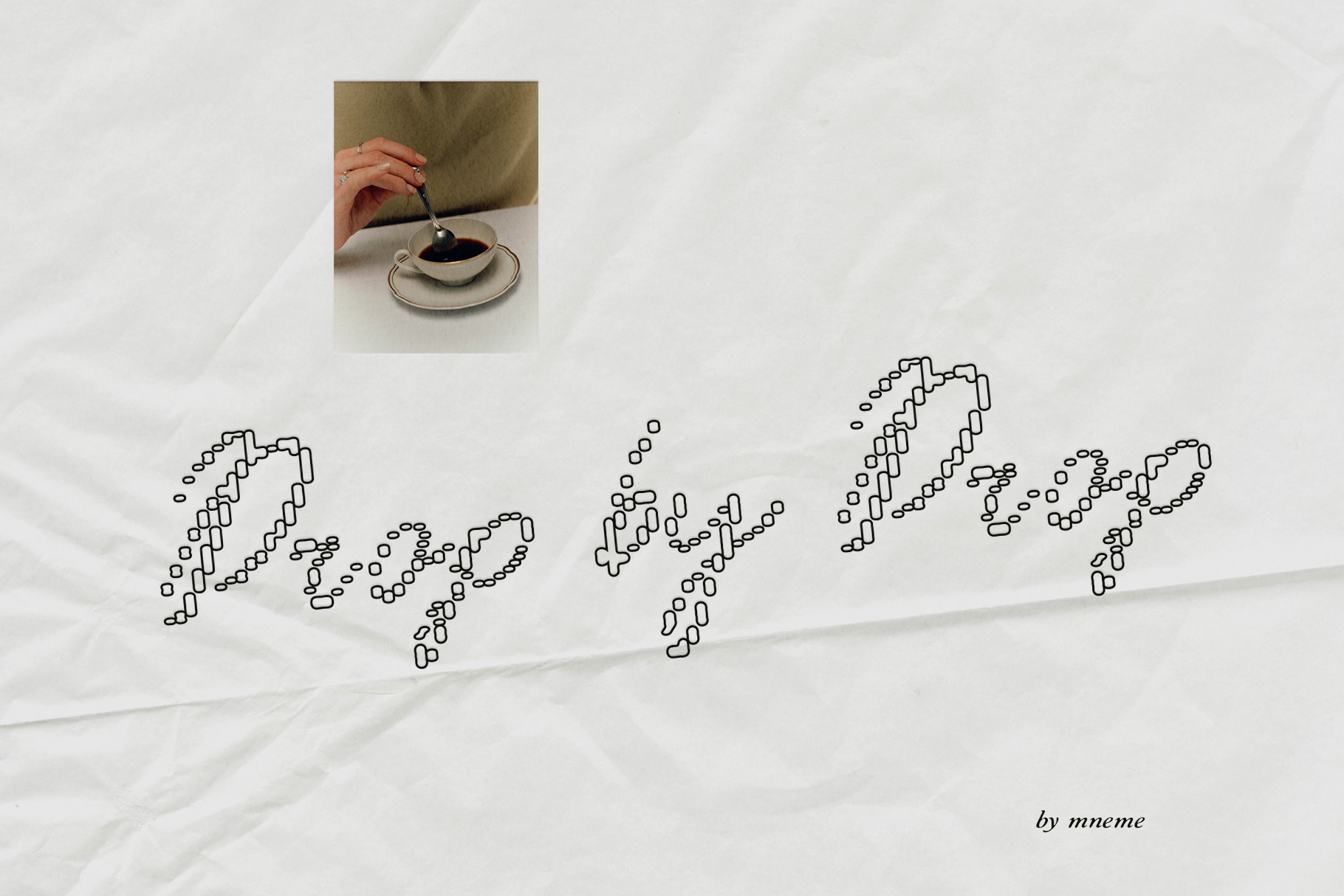
Drop by Drop - Dotted Script Font
Drop by Drop is a soft, slightly irregular script built from tiny rounded shapes that come together into a readable flow. It feels light, textured, and a little unstable like a line that’s forming as you look at it.
The letterforms aren’t drawn in one stroke. Instead, they’re made of small clustered shapes that gently merge, creating a delicate, almost tactile look without losing clarity.
This font works beautifully in branding, packaging, editorial layouts, and social media — anywhere you want something soft, a bit different, and visually interesting without being loud.
- beauty & skincare brands
- fashion labels
- minimalist packaging
- modern wedding designs
- social media quotes & stories
- editorial layouts